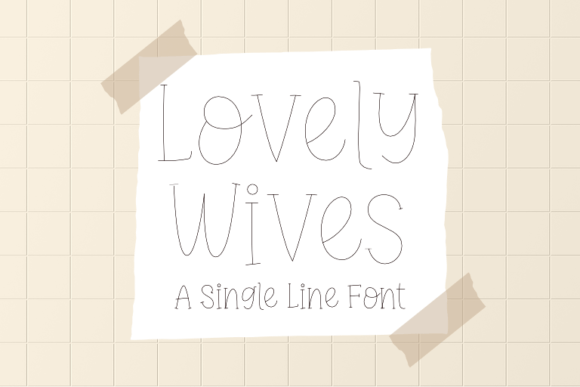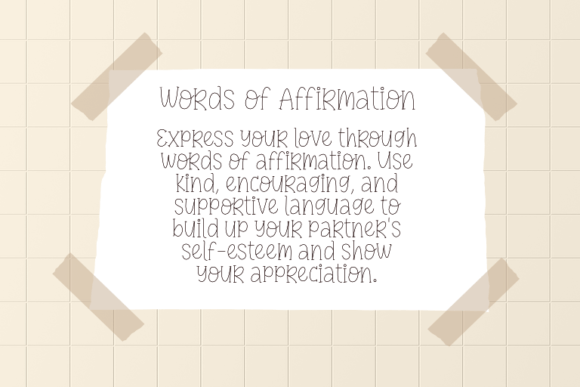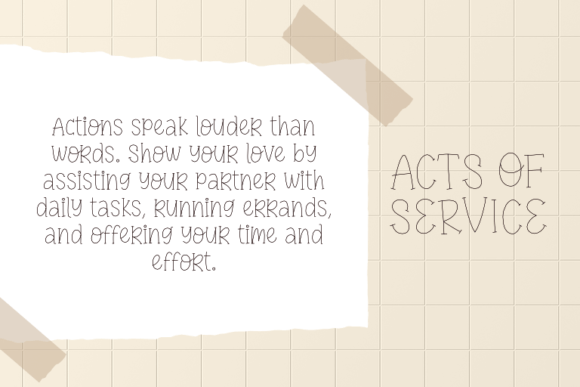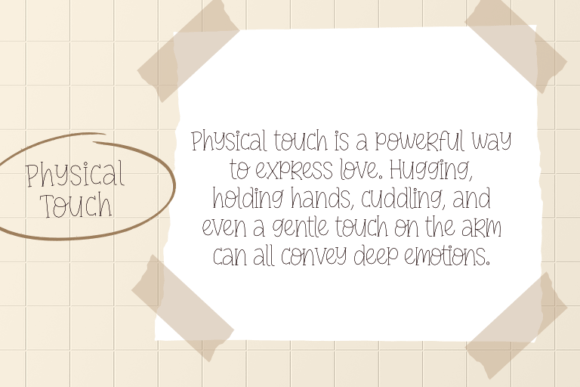
Lovely Wives Font: A Cute Single-Line Font for Cricut & DIY Crafts
About the Lovely Wives Font
The Lovely Wives Font is here to transform your projects with its distinctive character and style. Lovely Wives is a quirky and fun single-line font. It will add an incredibly joyful touch to your designs. Add this cute font to each of your creative ideas and notice how it makes them stand out!
Lovely Wives’ playful, quirky nature makes it ideal for headlines, short text blocks on packaging, and eye-catching social media graphics. Its whimsical style would be perfect for brands targeting a young, fun-loving demographic, adding a touch of lightheartedness to logos and promotional materials. However, its single-line design and unique character set limit its usability for body text or extended reading. Avoid using it in UI elements or lengthy paragraphs.
To balance its lightheartedness, pair Lovely Wives with a clean sans-serif font like Open Sans for body copy or a more structured serif like Lora for a touch of elegance. For a bolder contrast, consider pairing it with a geometric sans-serif, such as Montserrat, to emphasize its playful quirkiness. Alternatively, a delicate script font could add a layer of sophistication while maintaining a light and friendly overall feel.
The font’s core personality is undeniably cheerful and informal; it evokes a sense of fun and approachability.
Lovely Wives Font Usage Examples
Lovely Wives Font Example